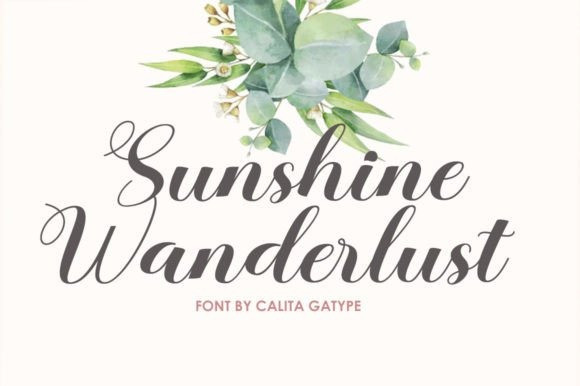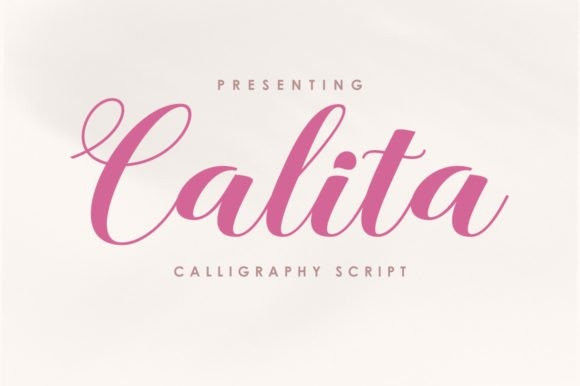
Calita Font
Calita Script Font is a modern thick and firm calligraphy-style font. This lovely typeface will look beautiful on all designs, New Year designs, weddings, branding materials, blog titles, quotes and invitations, and business cards.